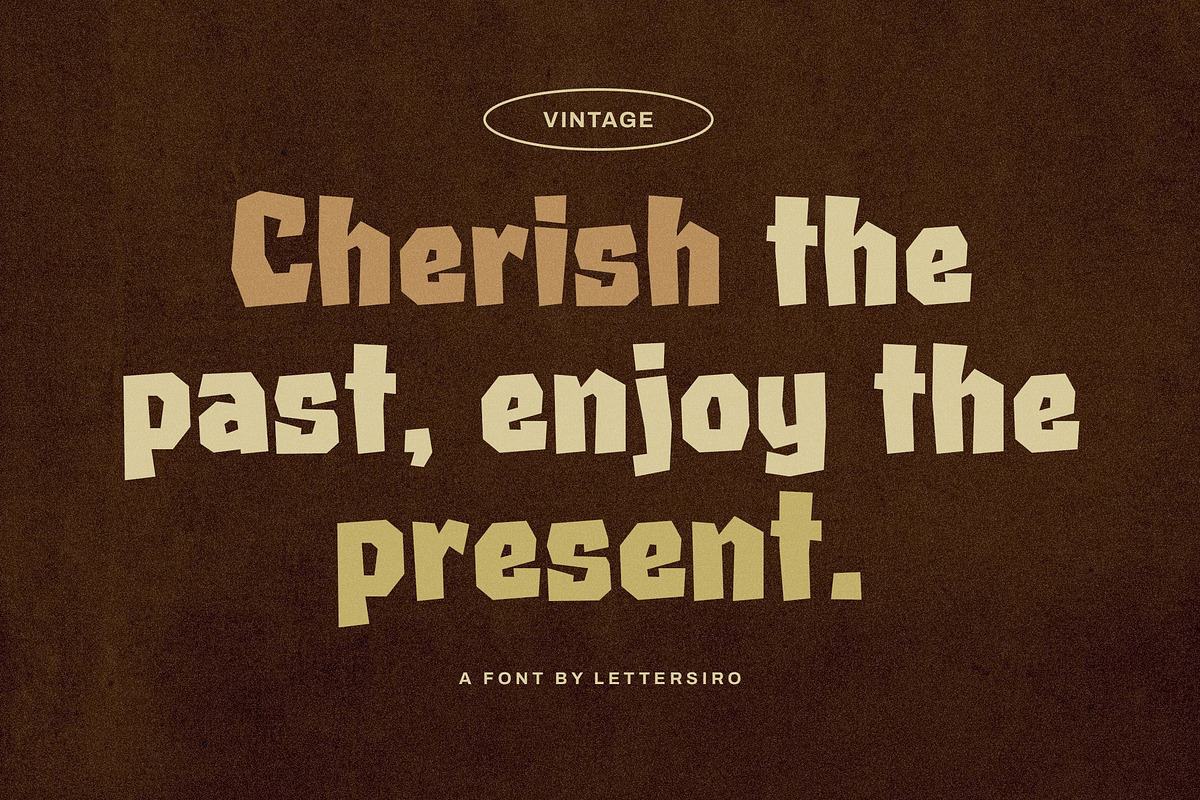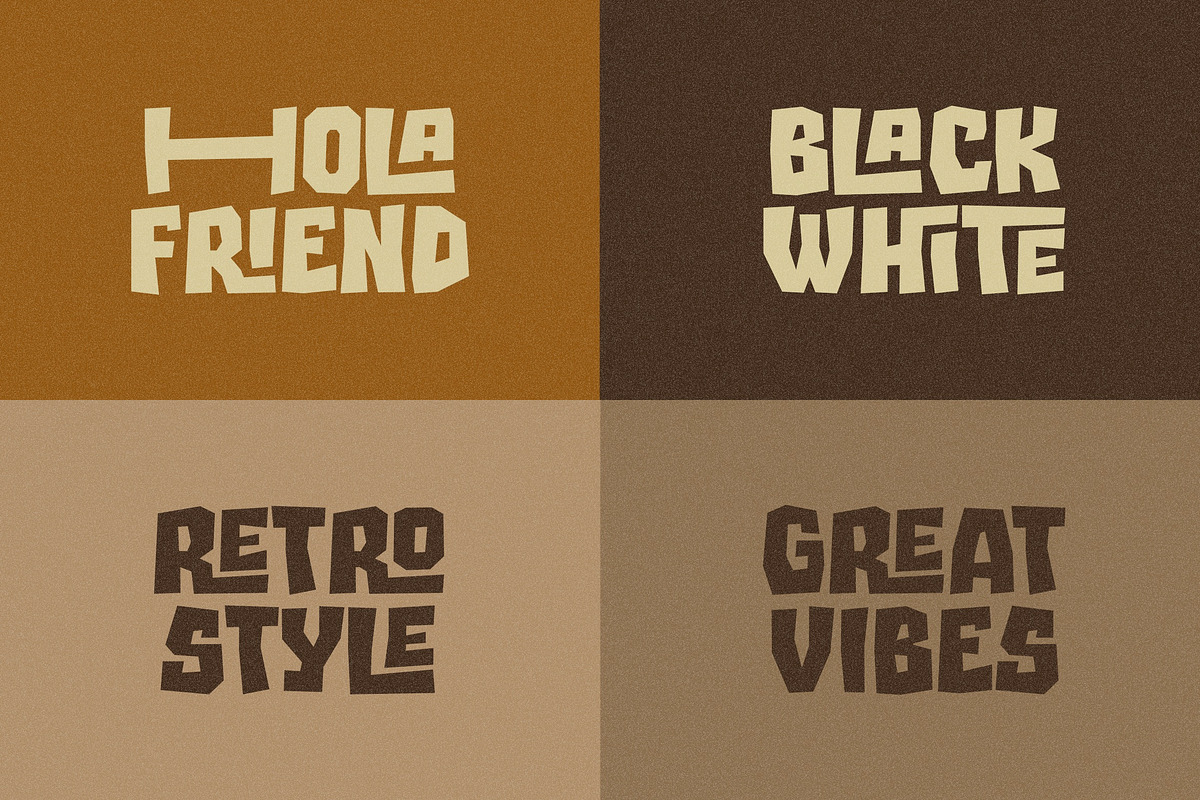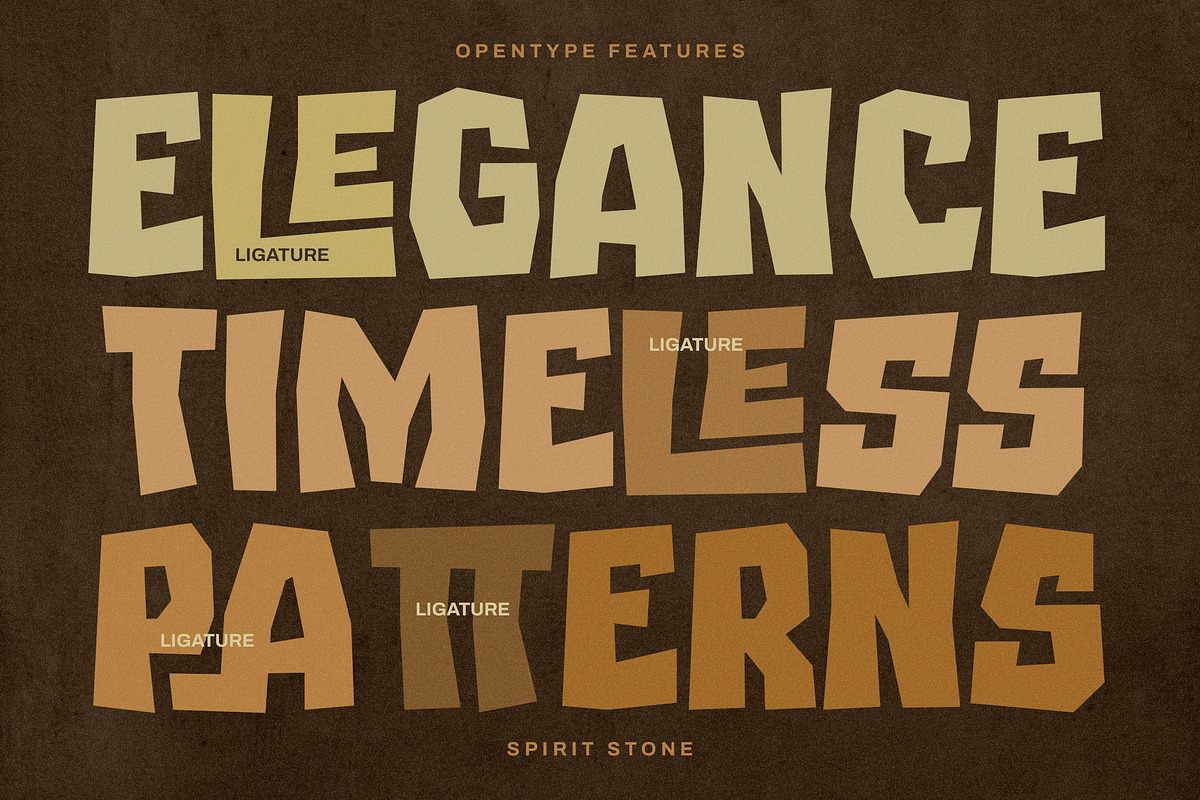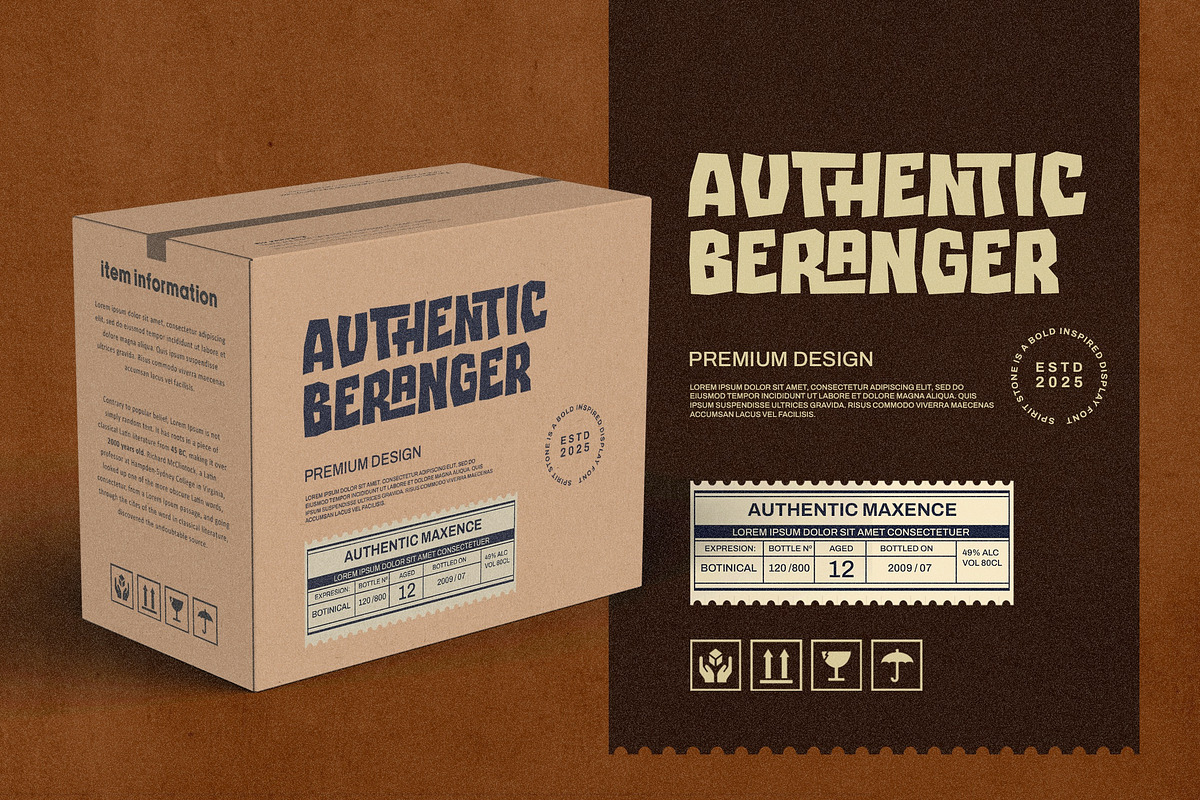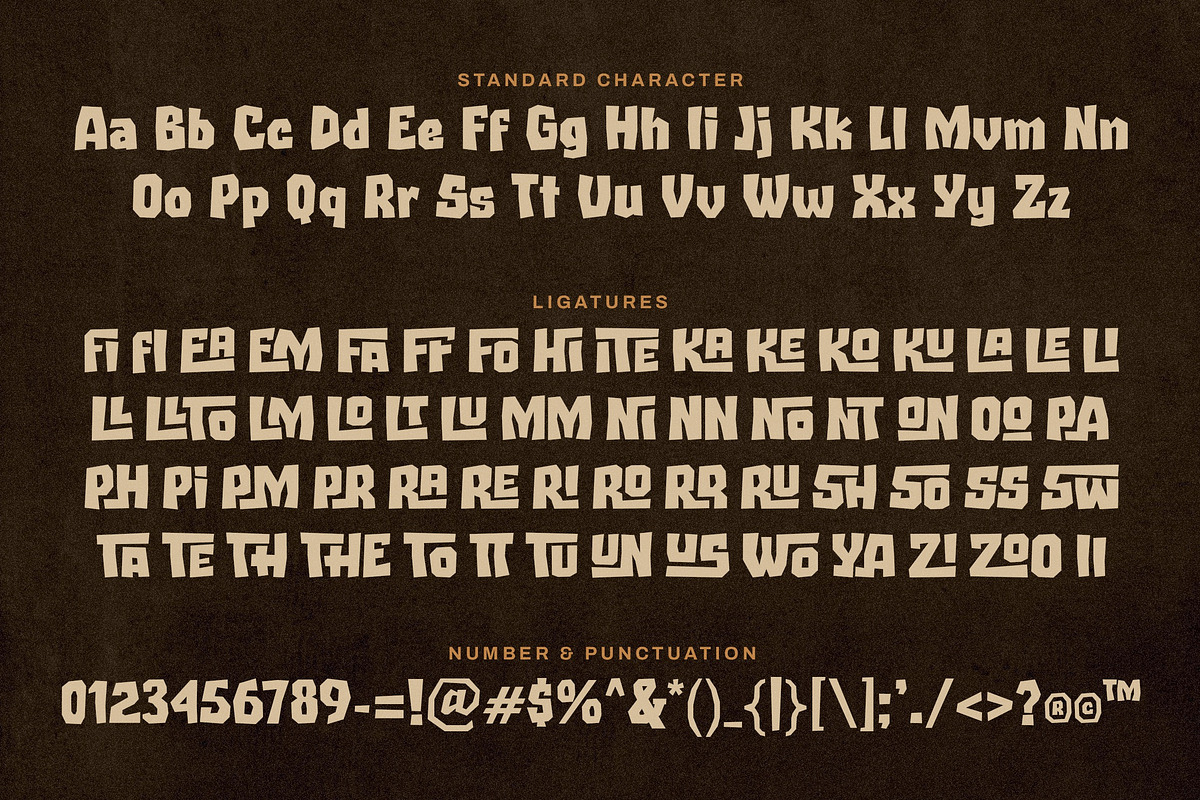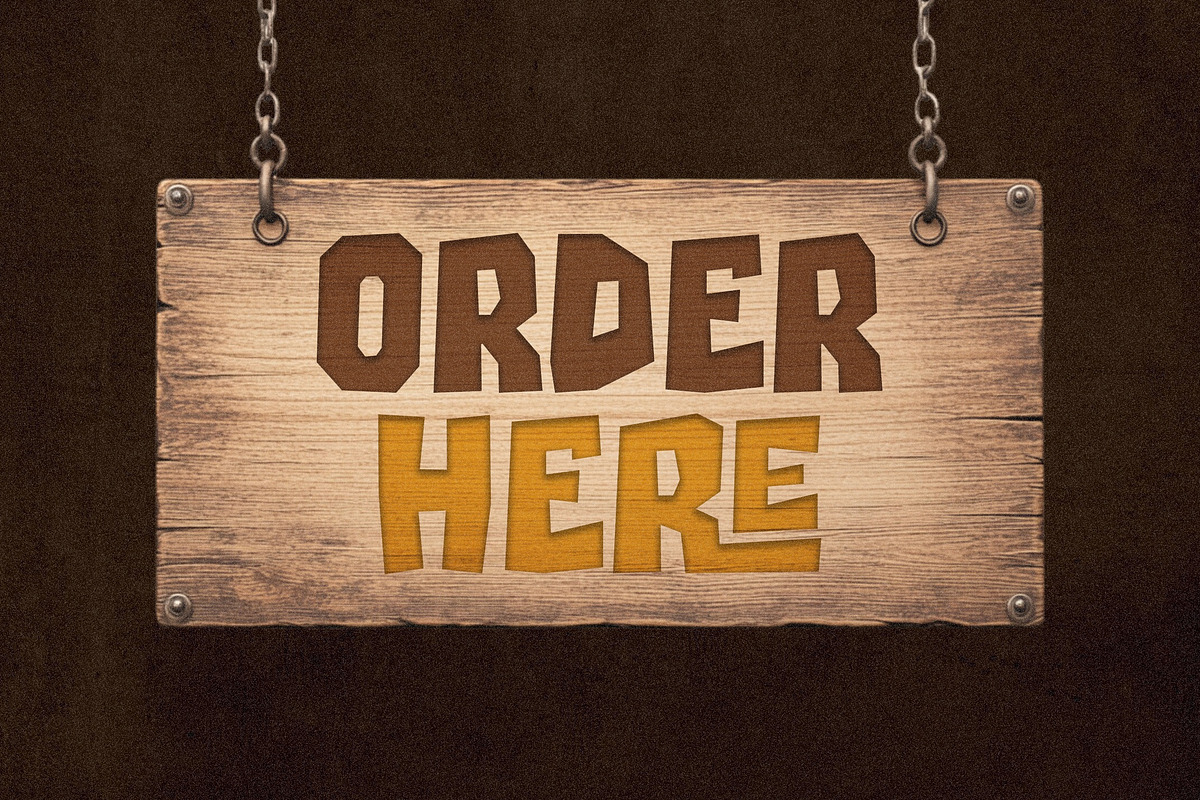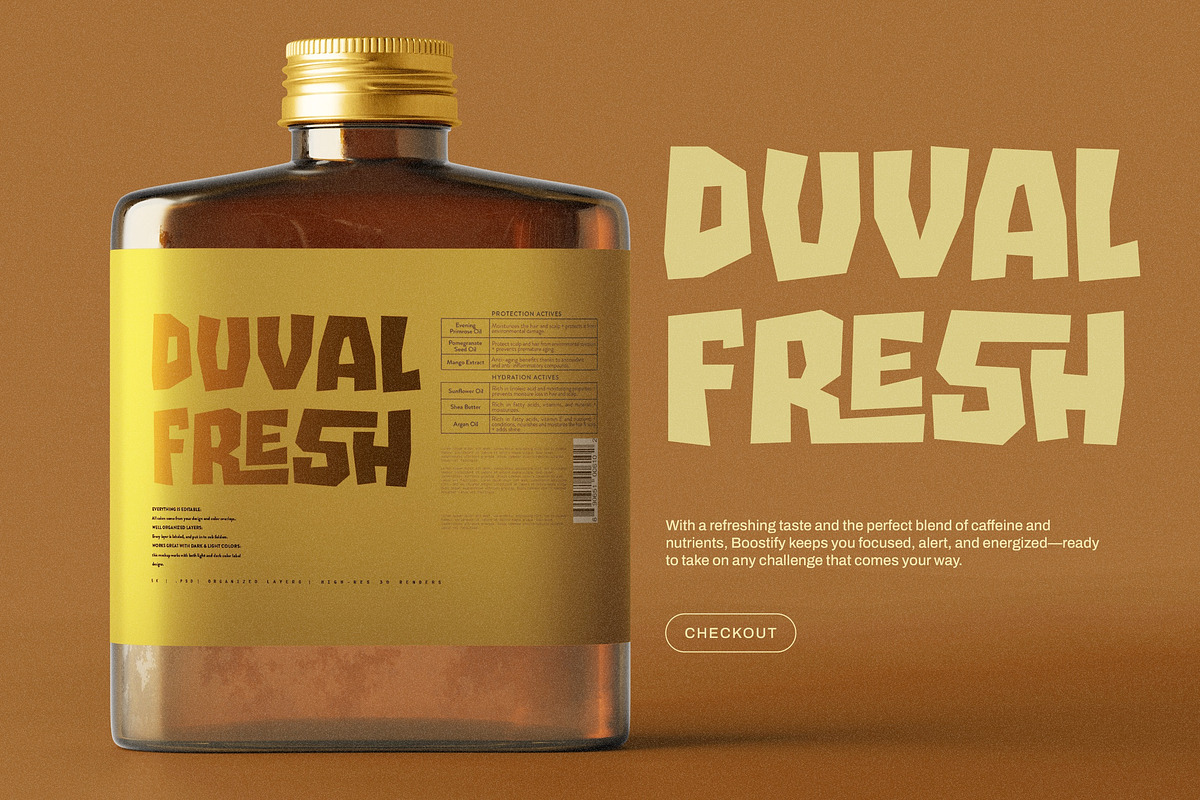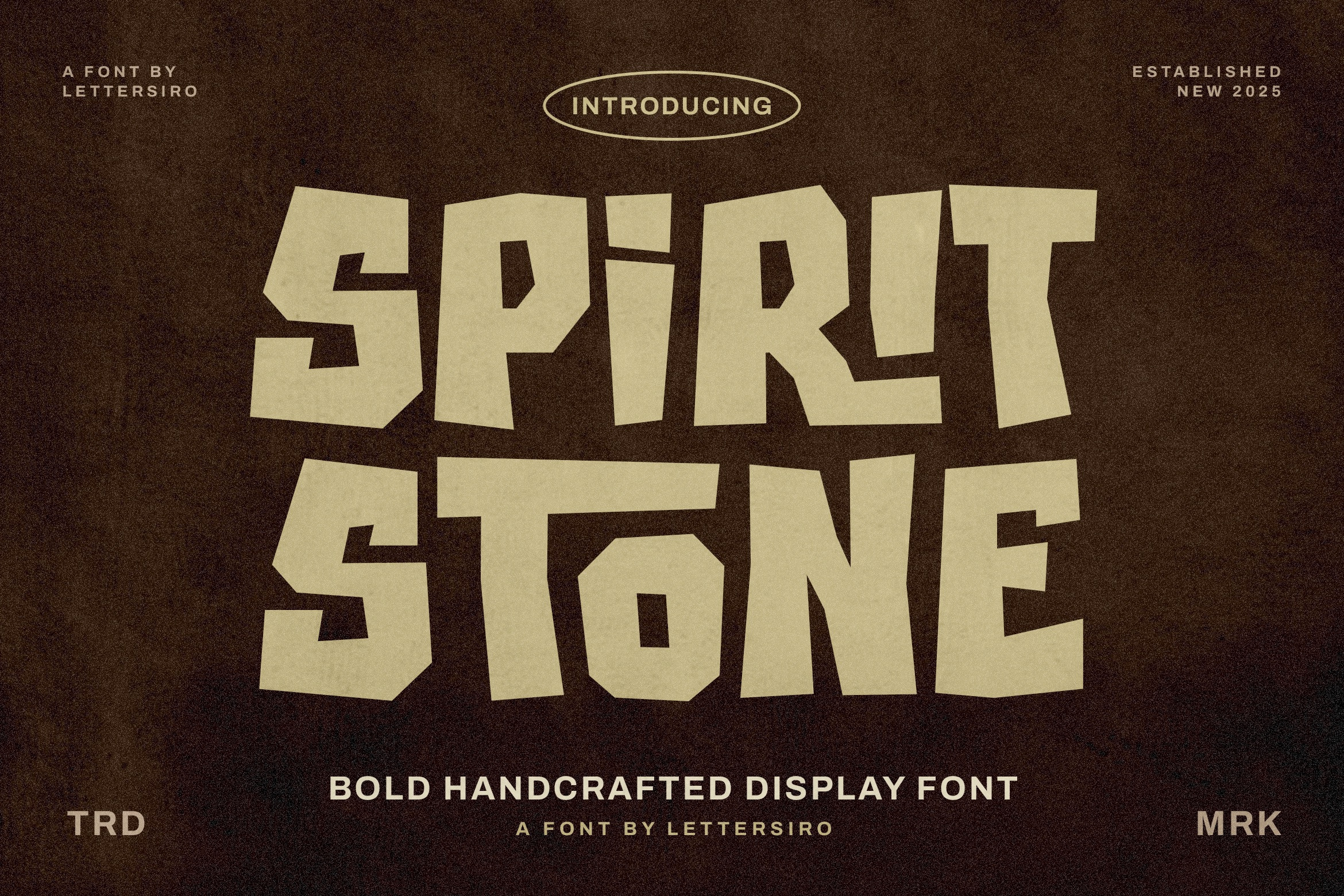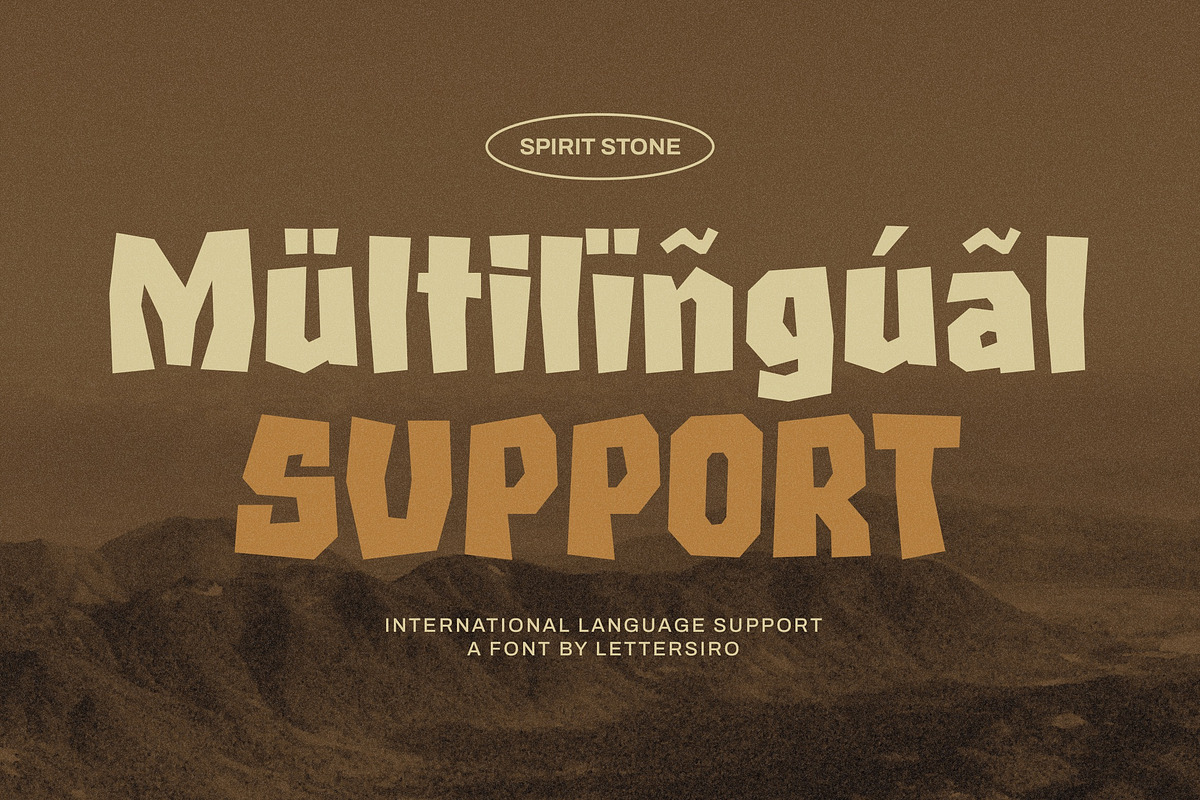
Spirit Stone – Ligature Logo Font
Spirit Stone is a bold handcrafted display font with a unique and rugged personality. Inspired by primitive carvings and stone-cut shapes, this font is designed to give your projects a raw, energetic, and impactful look. Every letter has a slightly irregular shape, delivering an organic feel that stands out in logos, headlines, posters, and creative branding.
With powerful uppercase forms and a collection of 65 custom ligatures, Spirit Stone helps you create attention-grabbing compositions that feel authentic and adventurous. Whether you're crafting a logo for a music project, creating a poster, or designing a tribal-themed graphic, this font brings raw originality and strength to your message.
Spirit Stone is perfect for designers who want to break the rules and embrace something bold, artistic, and totally different.
Bold Handcrafted Style – Inspired by stone-carved shapes and tribal aesthetics
Unique Character Design – Rough edges and uneven forms for a natural vibe
65 Creative Ligatures – A rich set of ligatures for bold and dynamic lettering
Full Character Set – Includes uppercase, numbers, punctuation, and symbols
Multilingual Support – Supports Western European languages
Logo Design – Make bold, unforgettable logo marks
Music or Art Posters – Capture attention with expressive text
Experimental Branding – Build unique brand identities with handmade energy
Tribal & Primitive Projects – Match natural and earthy visual themes
Creative Headlines – Great for book titles, banners, and album covers
Spirit Stone delivers bold energy and unique style in every letter—built for creatives who want their typography to speak loud and clear.